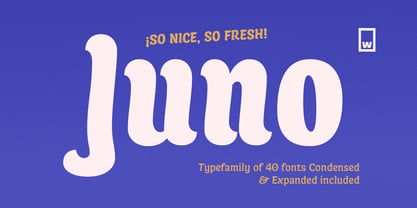
Juno Font
Juno Font is perfect for feminine wellness brands, goddess-inspired spiritual centers, women's empowerment organizations, lunar cycle tracking apps, divine feminine product packaging, and celestial beauty companies. This majestic typeface excels in astrology services, women's retreats, goddess worship materials, and any application where divine feminine energy and celestial authority create powerful connections with spiritual sisterhood.
What makes Juno Font so exciting is its extraordinary ability to channel the regal power and protective wisdom of the Roman queen of gods through gracefully commanding letterforms that embody feminine divine authority. The font features queenly curves, celestial proportions, and goddess-inspired character shapes that radiate both strength and nurturing energy. Its divine presence makes it perfect for brands celebrating the sacred feminine and women's spiritual empowerment.
Juno Font comes in a divine family including Light, Regular, Medium, Bold, and Goddess weights. Each style features complete uppercase and lowercase character sets, celestial symbols, divine numerals, and royal punctuation marks. The font family also includes crown alternates, goddess ligatures, and lunar variations that allow designers to create truly empowering feminine communications with divine elegance and spiritual authority.
This celestial typeface transforms communications into powerful invocations of divine feminine wisdom and goddess energy. Juno Font Free Download provides spiritual practitioners and feminine brands with essential typography that honors the sacred feminine while serving contemporary women's empowerment needs. Whether you're developing brands for women's wellness centers, creating materials for goddess circles, or designing packaging for feminine spiritual products, this font delivers authentic divine resonance with queenly grace.
The font's goddess character makes it particularly effective for women's spiritual teachers, feminine wellness practitioners, astrology services, and divine feminine lifestyle brands. Its regal readability ensures that Juno Font communicates clearly while maintaining its distinctive celestial personality. The font's ability to evoke empowerment and divine protection makes it an invaluable crown for any project seeking to honor the goddess within and connect with audiences through the eternal appeal of feminine divine wisdom, protective love, and the sacred power of women's spiritual sovereignty.